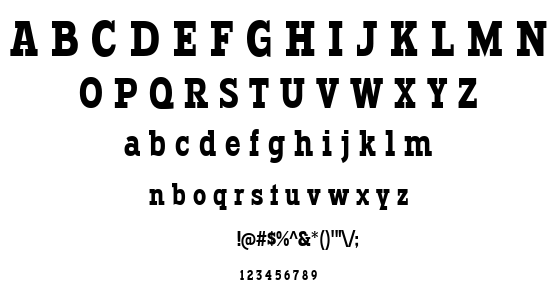
Typodermic is a nonsense-free, blood-and-guts industrial slab-serif with faithfulness, heart and soul. Don’t forget to read the files inside the zip for details. Updated in 2012.